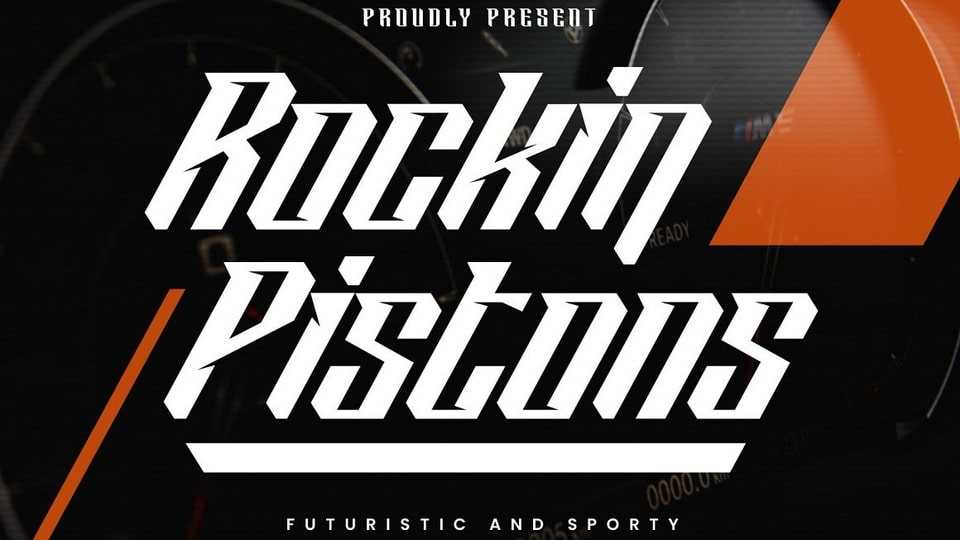
Download Rockin Pistons font, a display typeface that exudes strength, energy, modernity, and speed. Its unique design with sharp edges gives it a powerful and fantastic impression.